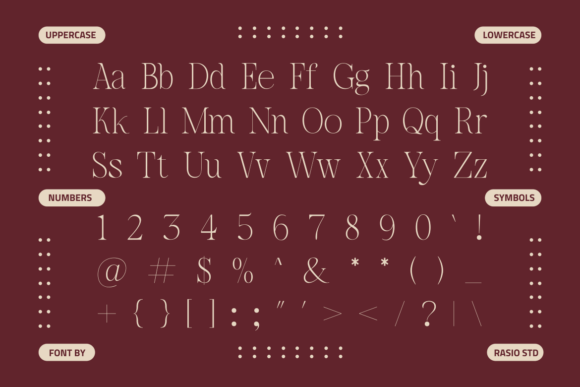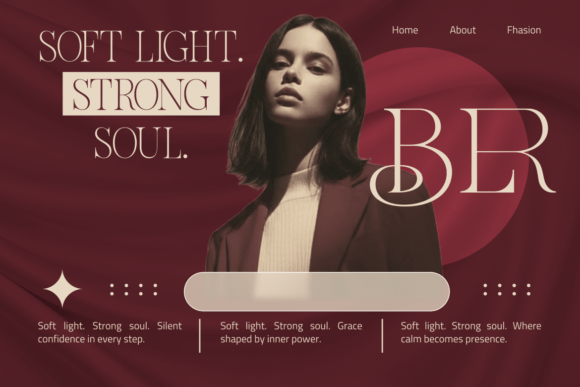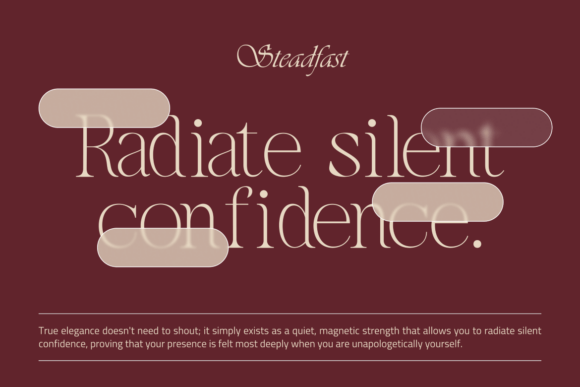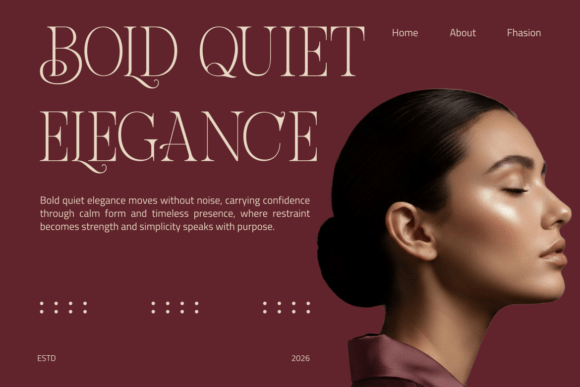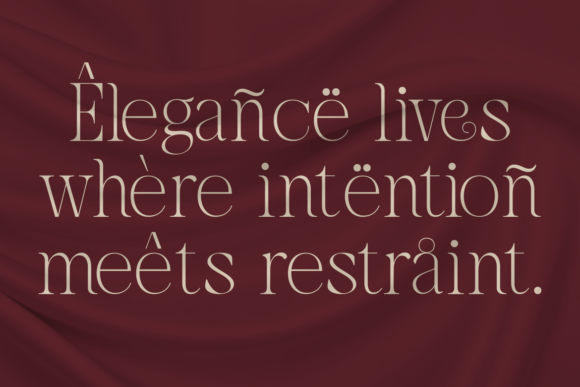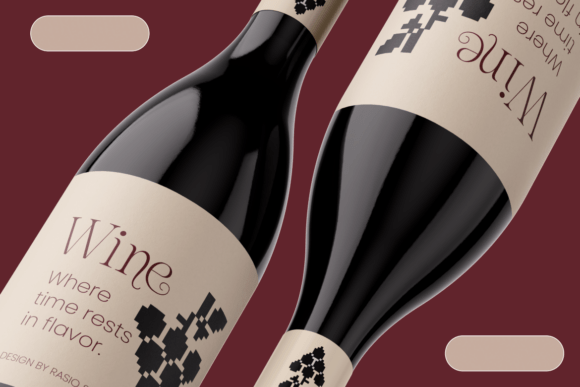
Introduction to Lathenia Font
Have you ever stumbled upon a font that makes your creative project feel like a dream come true? For many designers, that moment is when they discover Lathenia Font – an elegant modern display serif font that embodies high-quality typography. Whether you’re crafting a luxury brand identity or designing premium stationery, Lathenia Font is the perfect design resource to elevate your work.
With its fluid movement, delicate line contrasts, and wide geometric proportions, Lathenia Font is a free download that’s hard to resist. Its transparent background allows for seamless integration into any design, making it an exceptional choice for signature lifestyle branding, upscale winery logos, and luxury hotel identity systems.
As a valuable addition to your design library, Lathenia Font offers advanced ligature support, ensuring that your typography layouts exude a rich sense of established craftsmanship and unyielding aesthetic grace. Whether you’re a seasoned designer or just starting out, Lathenia Font is an essential tool to help you create truly artistic headlines and captivating visual content.
Key Features of Lathenia Font
- High-quality, free download font suitable for various creative projects.
- Unique, modern design with a transparent background, ideal for backgrounds and overlays.
- Includes a comprehensive set of characters, including uppercase and lowercase letters, numbers, and punctuation marks.
- Perfect design resource for graphic designers, digital artists, and other creatives working on various projects.
Honest Review: Lathenia Font
I recently stumbled upon the Lathenia Font, and I must say it’s a hidden gem in the design community. This high-quality font is a free download, making it an excellent resource for designers on a budget.
What I love about the Lathenia Font is its versatility. It comes with a transparent background, which makes it perfect for creating visually appealing graphics and designs. The font is also highly customizable, allowing you to experiment with different colors and styles to suit your creative project.
Here are some of the things that work well with the Lathenia Font:
- High-quality design that’s perfect for professional projects
- Free download, making it an excellent value for designers on a budget
- Transparent background for added flexibility in design
- Customizable with various colors and styles
- The font may not be suitable for projects that require a bold, statement-making font
- The customization options may be overwhelming for beginners
Overall, I’m impressed with the Lathenia Font. It’s a solid design resource that’s perfect for designers looking for a high-quality, free font. With its versatility and customization options, it’s a great addition to any design toolkit.
Introduction to Lathenia Font
Lathenia Font is a high-quality, free download design resource perfect for any creative project. This versatile font features a transparent background, making it ideal for use in various digital design applications.
Lathenia Font is ideal for use in a variety of creative projects, including:
Tips for Getting the Most Out of Lathenia Font
To get the most out of Lathenia Font, try the following:
- Experiment with different font sizes and colors.
- Combine Lathenia Font with other design elements for a unique look. Alternatives to Lathenia Font